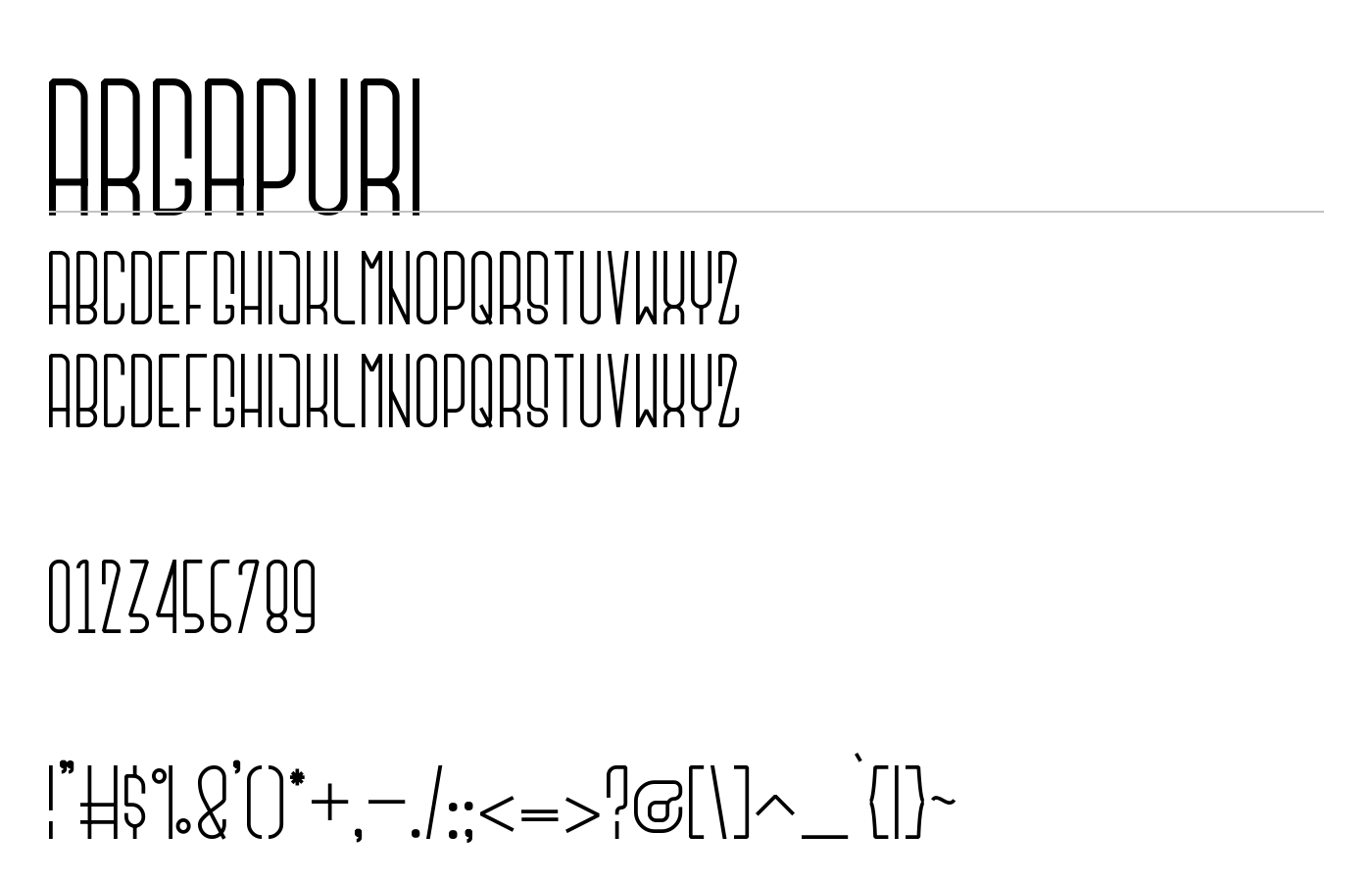
Argapuri Regular is a modern, ultra-condensed sans serif font featuring tall, narrow letterforms with uniform thin strokes and minimal contrast. Its geometric and clean design gives it a sleek, contemporary feel, making it an excellent choice for stylish headlines, branding, and editorial use where a sophisticated yet striking look is desired. This font works well in contexts requiring strong visual impact without sacrificing elegance or readability.
Argapuri Regular Font
About Argapuri Regular Font